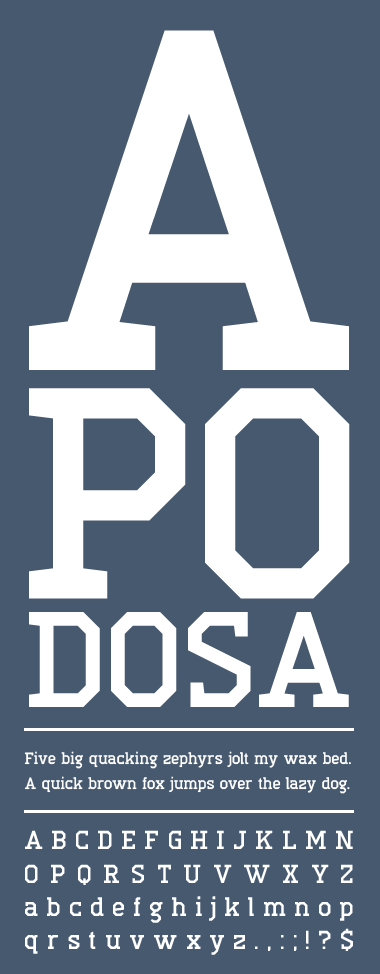
• Hey FontStruct! Long time no see! :)
This is what one would unfortunately have to call a lukewarm comeback. It's been almost 2 years since my last release, and what I come back with is a not overly creative design with an uncomplete character set and an unsatisfying name. But this has been collecting dust for too long in my unreleased fonts collection, and I sort of like the uppercase... So I thought maybe someone else does, too.
This is a nice comeback! I'm still waiting for the complete glyphs :)
Looks perfect to me )
10/10!
The U/C works really well ... but then again, so does the l/c. All in all a welcome comback :) 10/10
Hi, this is a really nice fontstruction, but the «e» appears to fall slightly to the right. Perhapse one needs to change the lower arc ?
This is amazing and HARDLY a lukewarm come back! Great job! :)
very strong work! nice comeback!
my favourite fontstruction
Amazing!